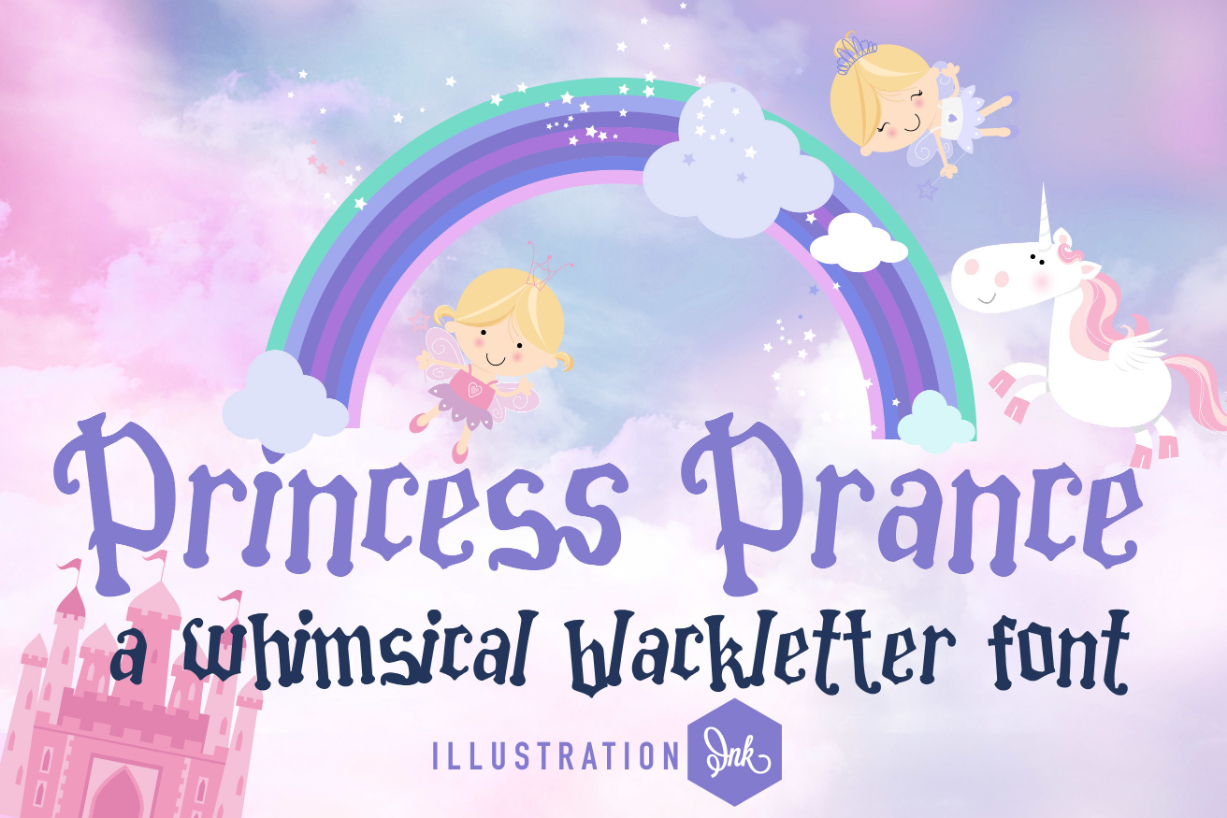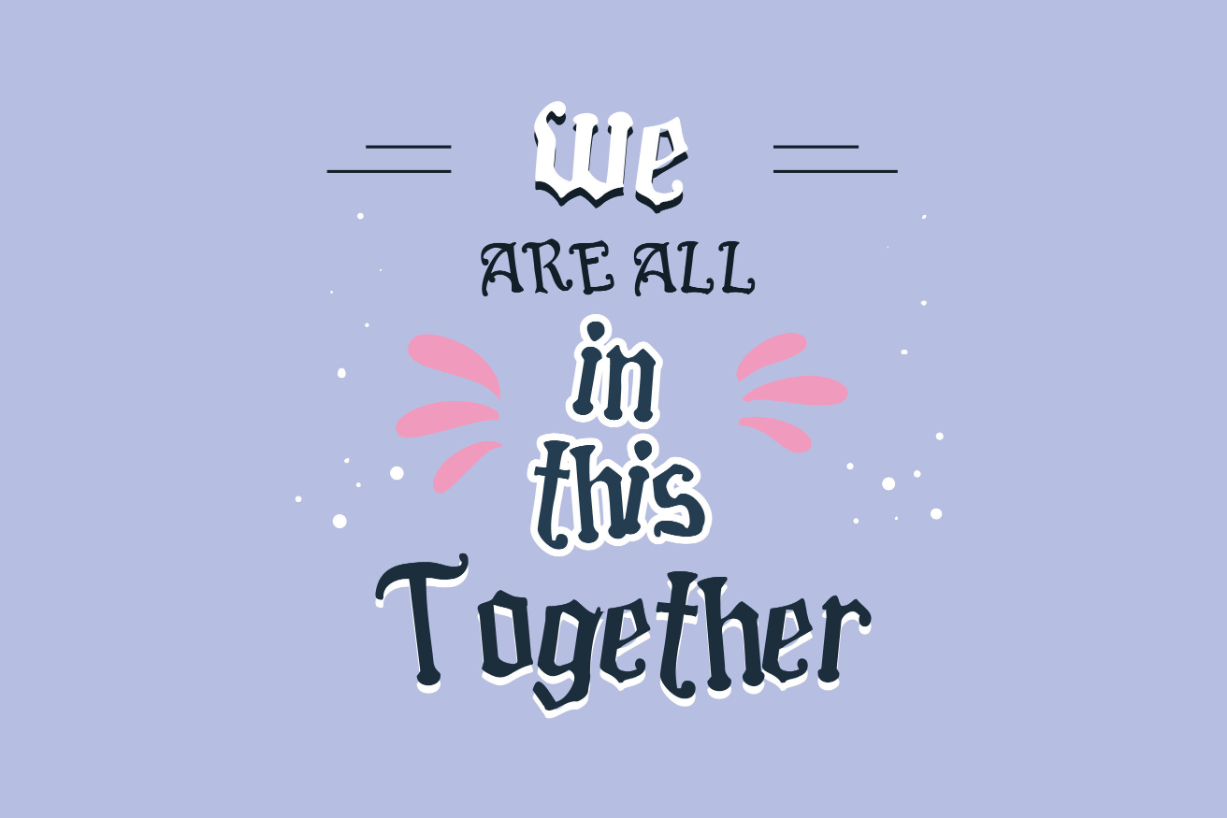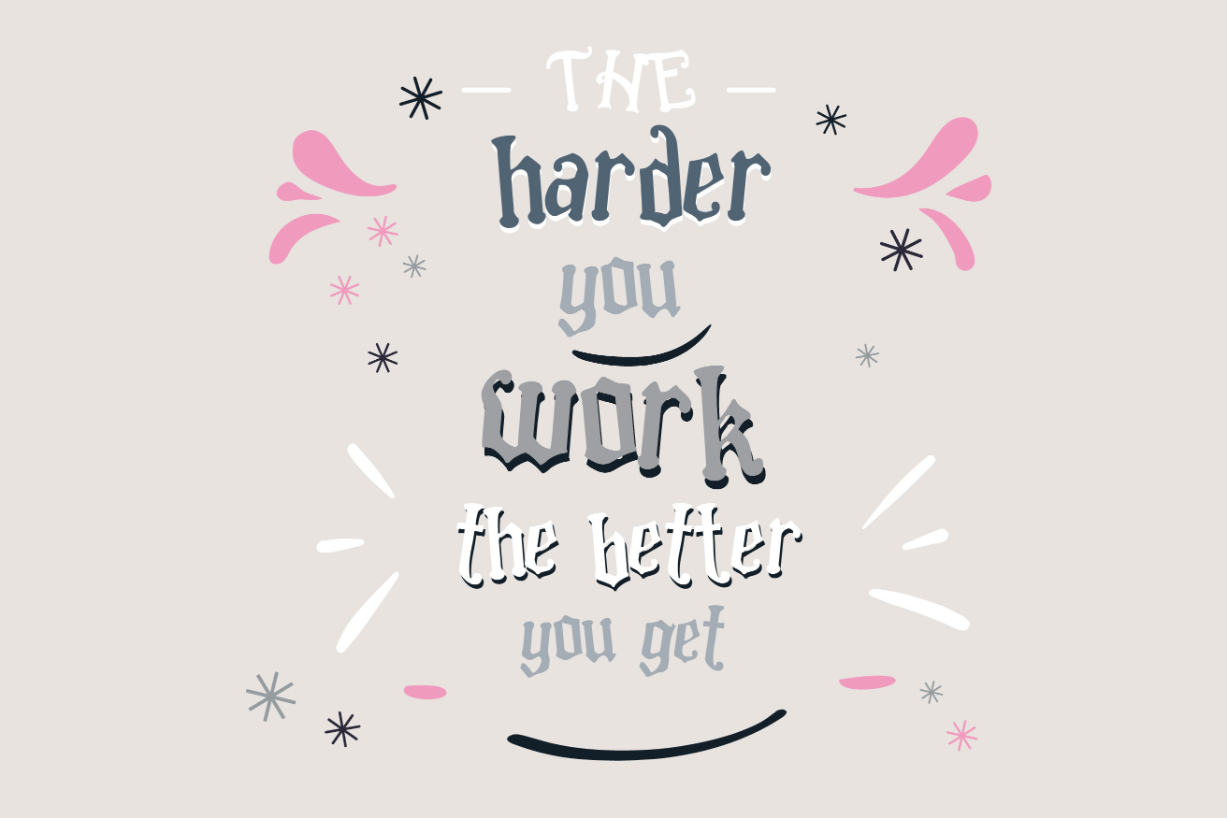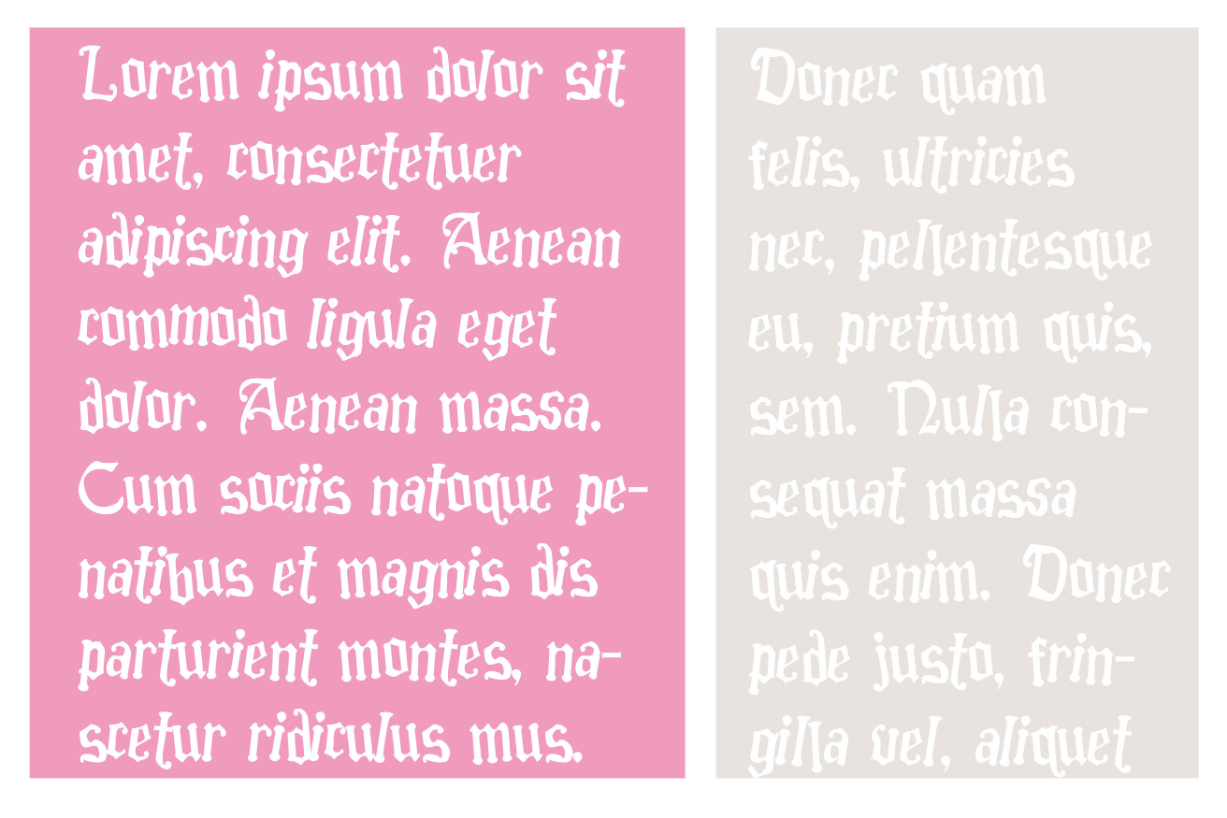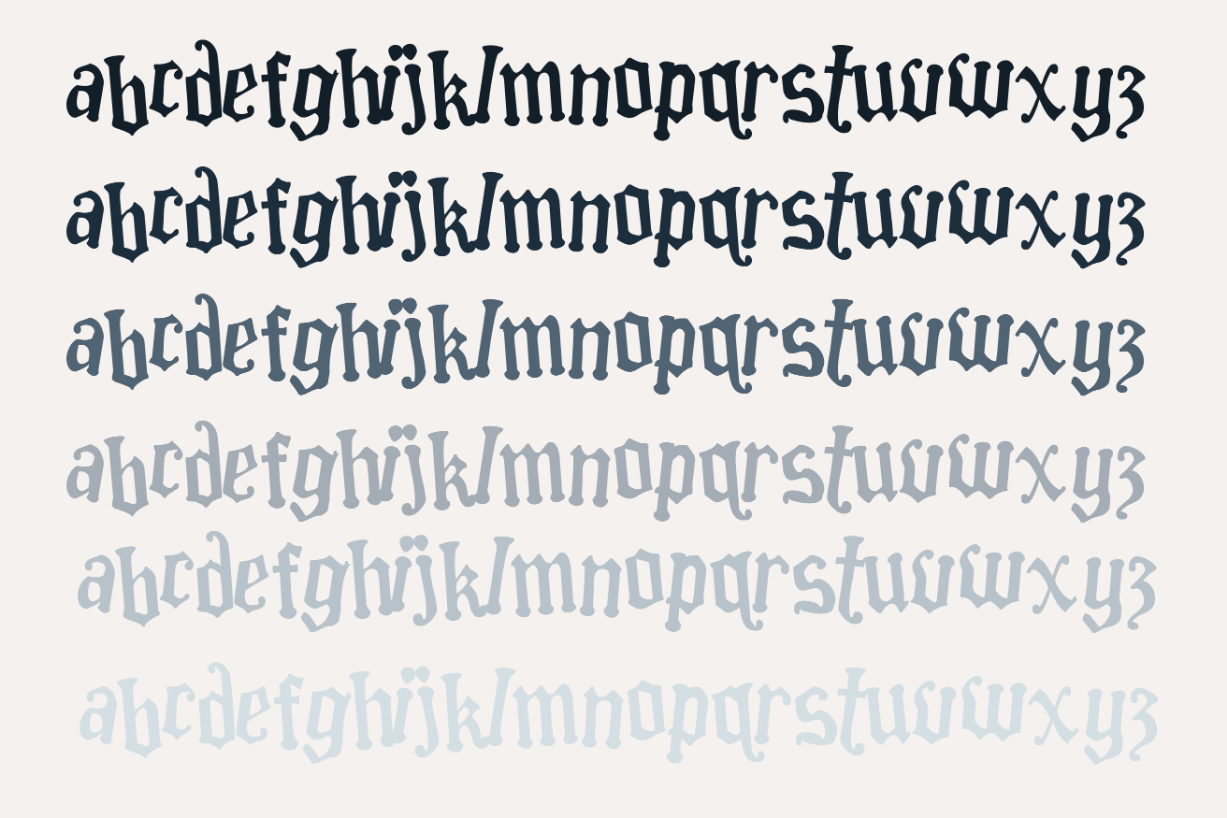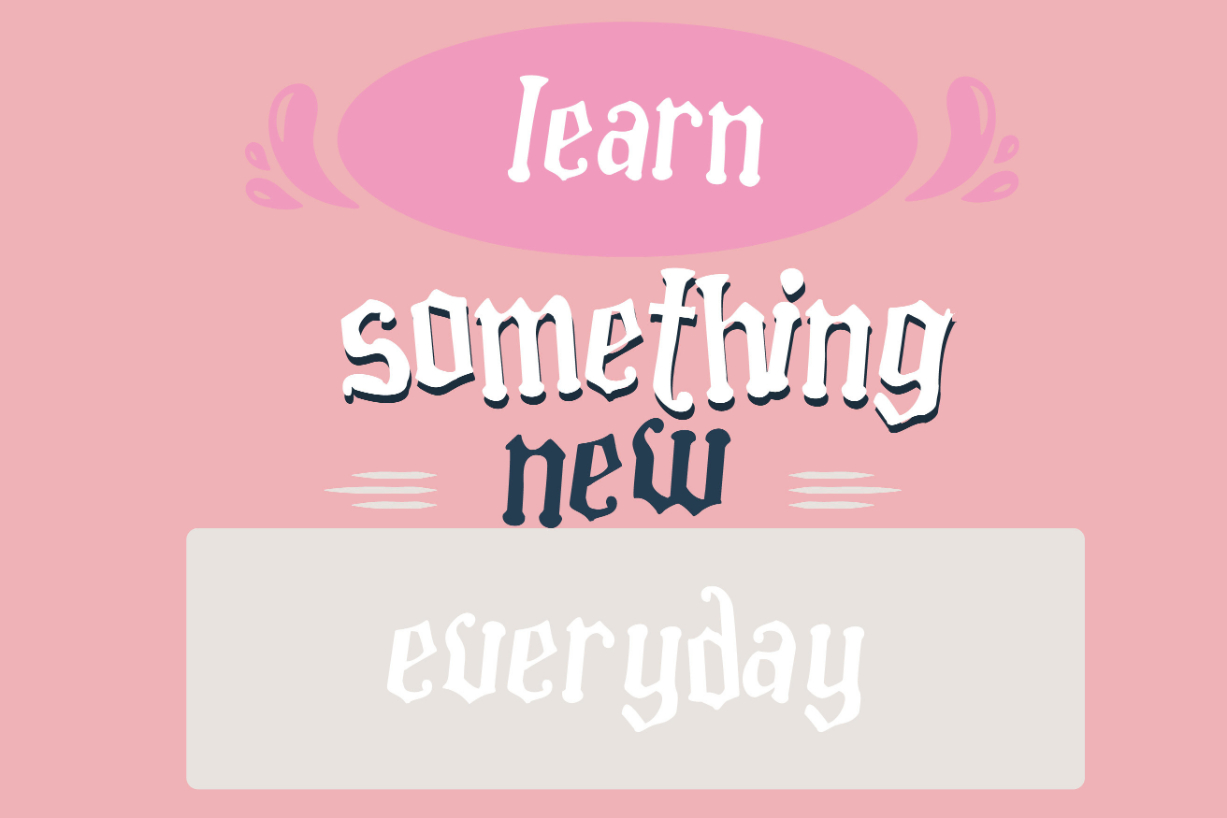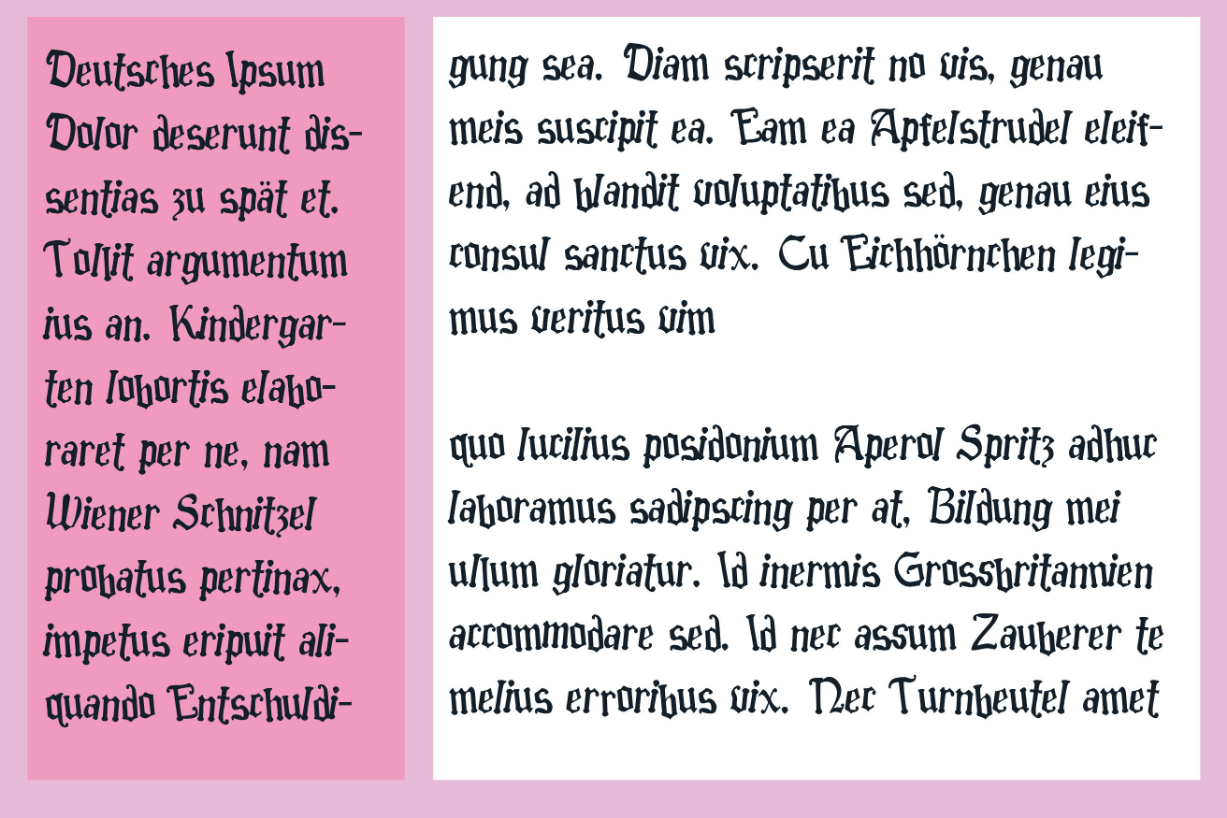
Princess Prance Font
About Princess Prance Font
Princess Prance is a delightful, whimsical blackletter font with a childish flair. Its bouncy baseline and fun curves will bring a smile to your face, while its soft edges and curly flourishes add a touch of playfulness. Perfect for projects needing a light-hearted, whimsical feel.